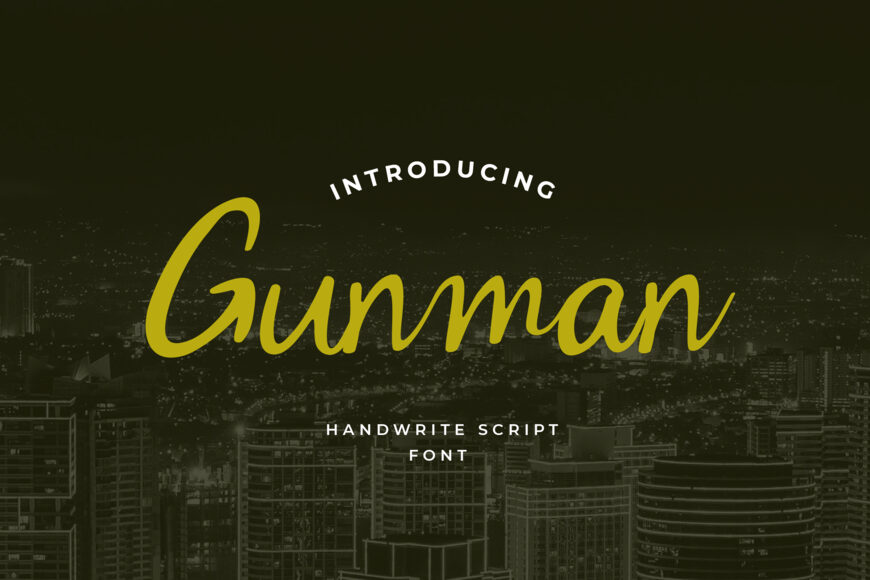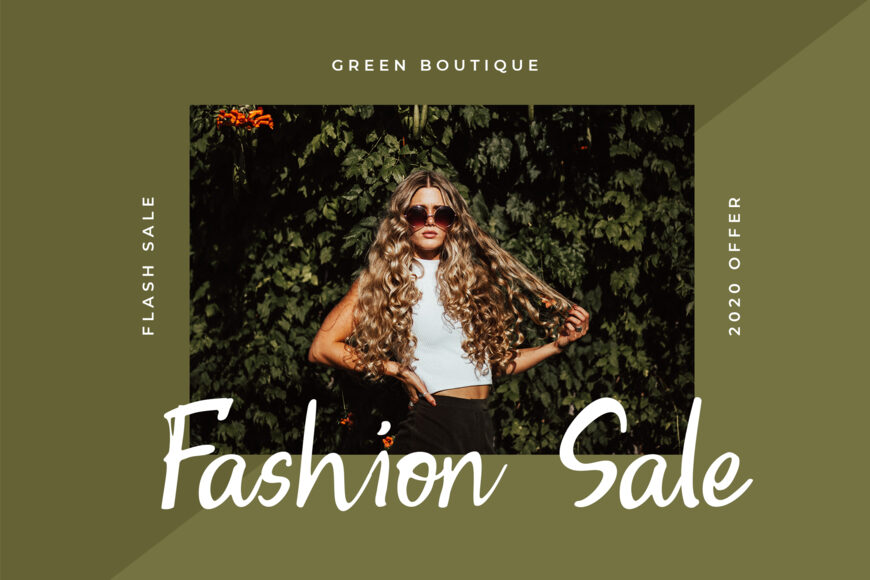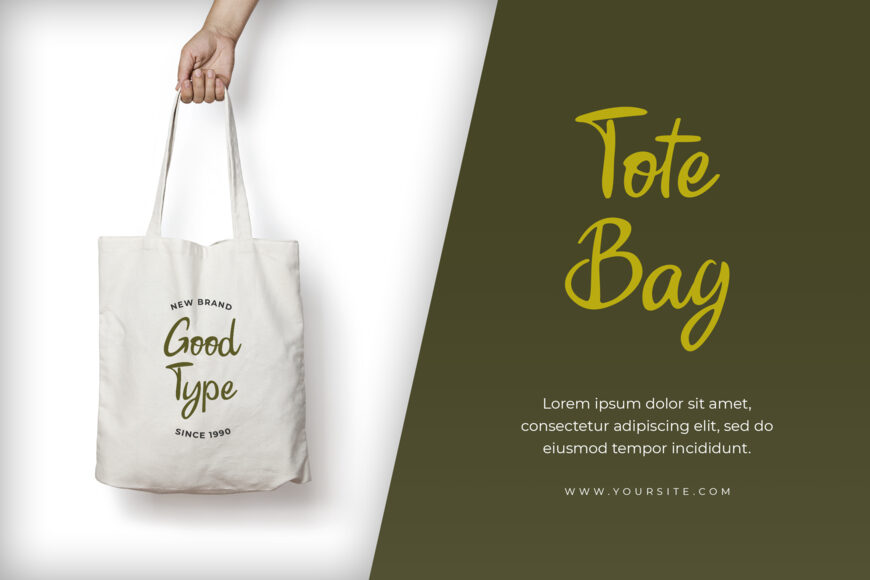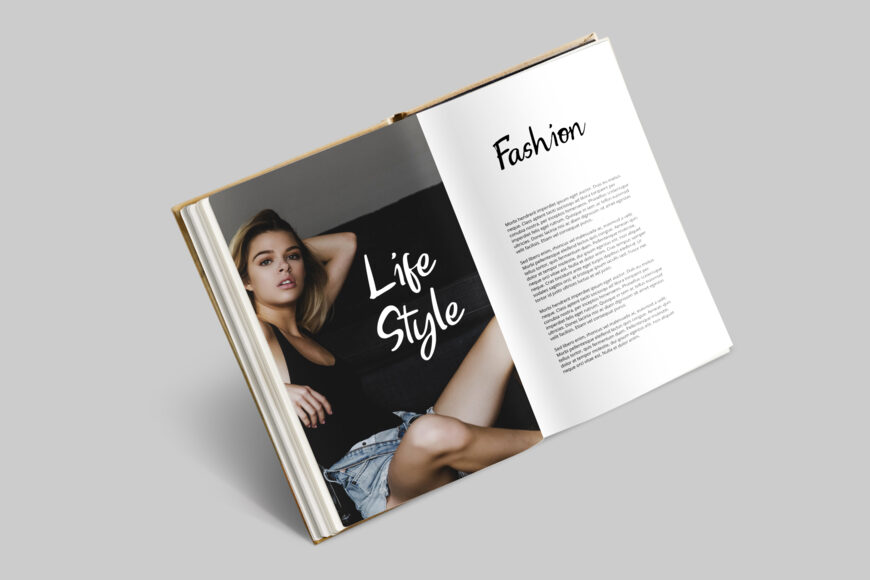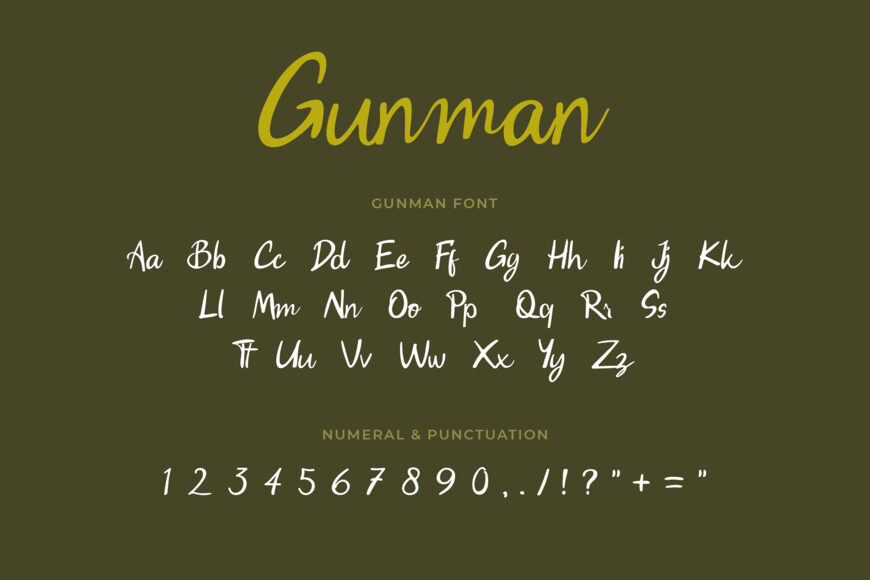
Gunman Font
Gunman is a cursive and fashionable script font. It has a trendy vibe and it can be used for a variety of design ideas, both formal and informal. Have fun with this beautiful font and explore its endless variations.